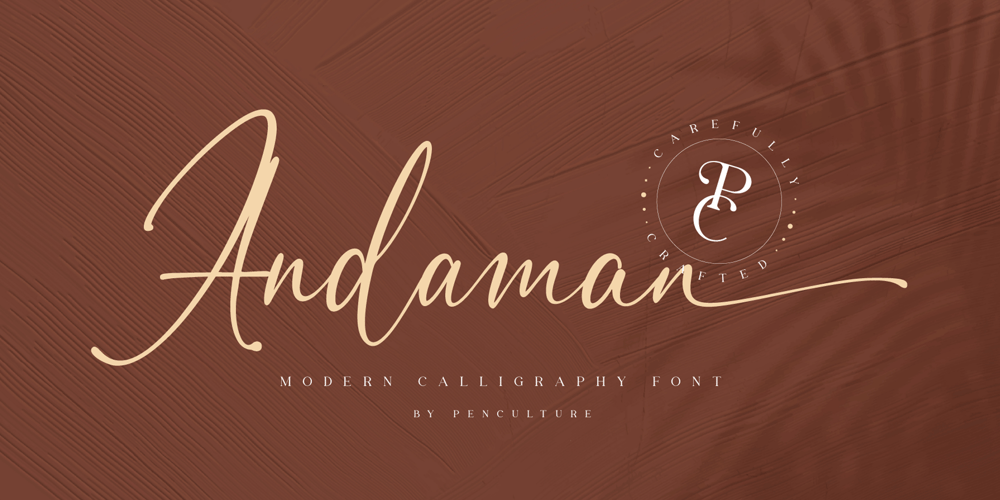
Andaman Font Family was designed by Revo Farsiky and published by Pen Culture. Andaman contains 1 styles and family package options. Andaman is carefully crafted modern calligraphy font, this font comes with ligature and artificial swash which will be very suitable for branding, logos, fashion projects, posters, magazines and many more.What inside and will you get: Fully uppercase and lower case Number and punctuation Ligature Ending Swash PUA Encoded I really hope you enjoy it – please do let me know what you think, comments & likes are always hugely welcomed and appreciated. More importantly, please don’t hesitate to drop me a message if you have any issues or queries.Thank you